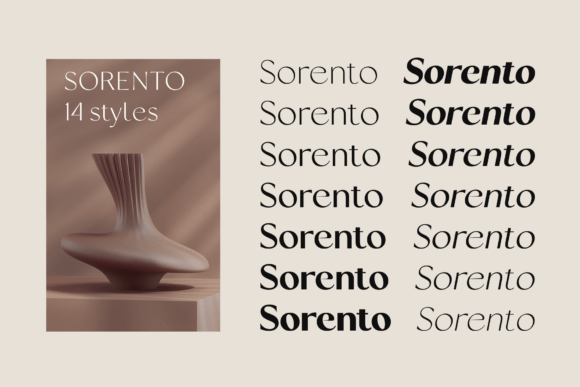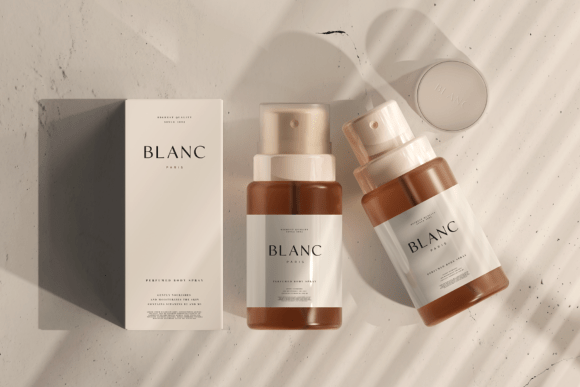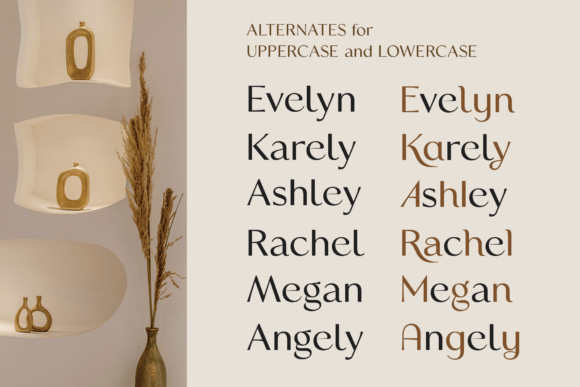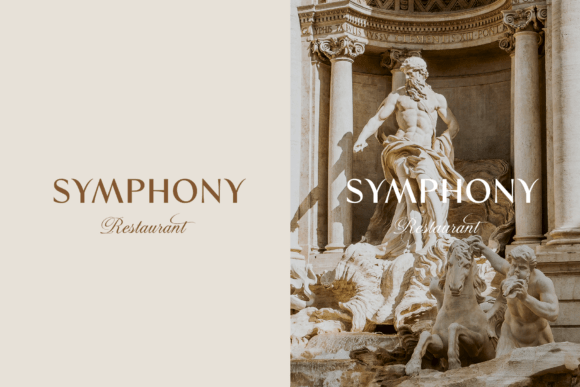
Sorento Regular Font
Sorento is a sophisticated serif font family that blends timeless elegance with modern refinement. Its letterforms are defined by graceful curves, delicate contrasts, and sharp details that give each character a distinct sense of style. The tall proportions and clean spacing enhance readability, making Sorento font equally suitable for editorial layouts, branding, packaging, and digital design.
With its refined balance of classic structure and contemporary flair, the font evokes sophistication while maintaining versatility across multiple design contexts. Sorento typeface is a statement of elegance and clarity, perfect for designers looking to elevate their work with a touch of luxury and distinction.